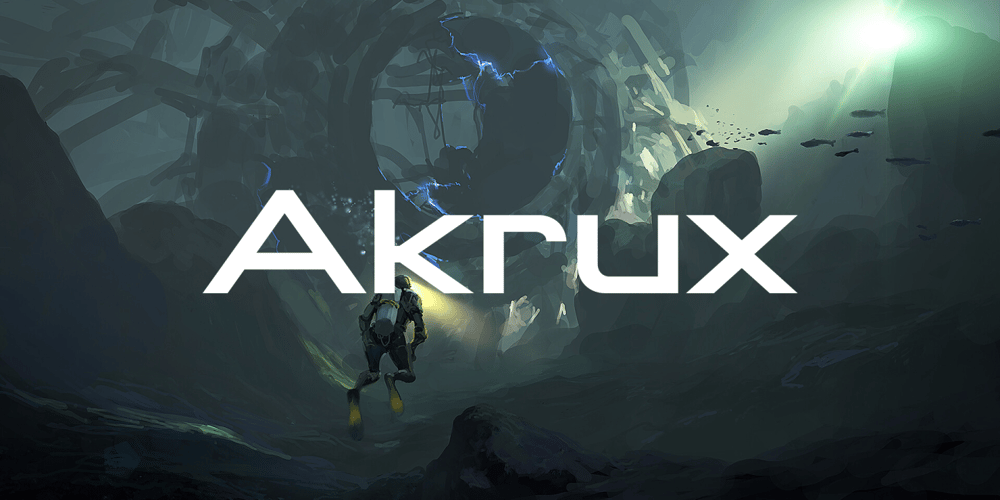
Akrux Font Family was designed by Eugene Bunin and published by Harvester Type. Akrux contains 7 styles and family package options. Akrux is a futuristic variable wide font. It is inspired by forms that are close to futurism, stars and space. Everything related to space, movies, cartoons, art, books, spaceships. Ideas came from everywhere.The font is suitable for headlines, posters, logos, large typography, magazines, everything related to cars and anything that can be futuristic and meaningful. It has great language support, and Cyrillic is planned in the future.